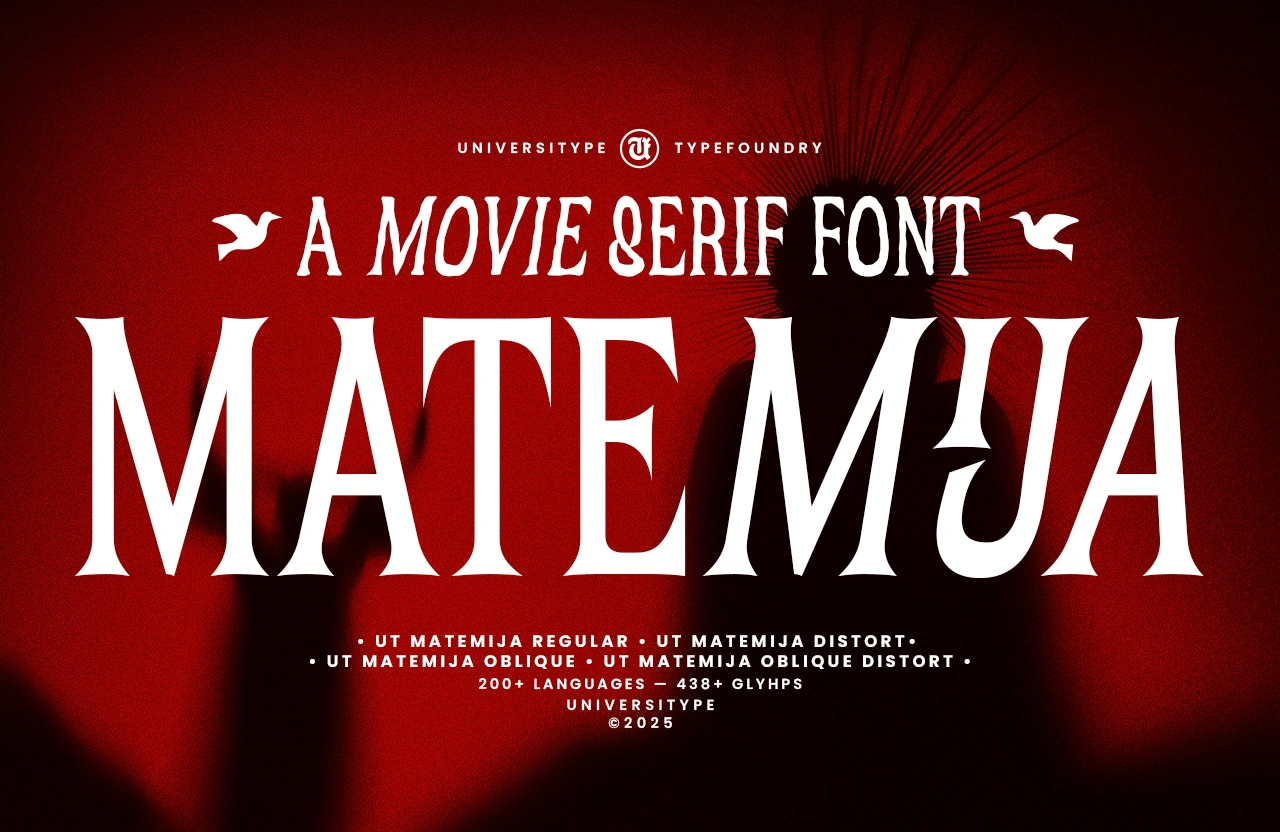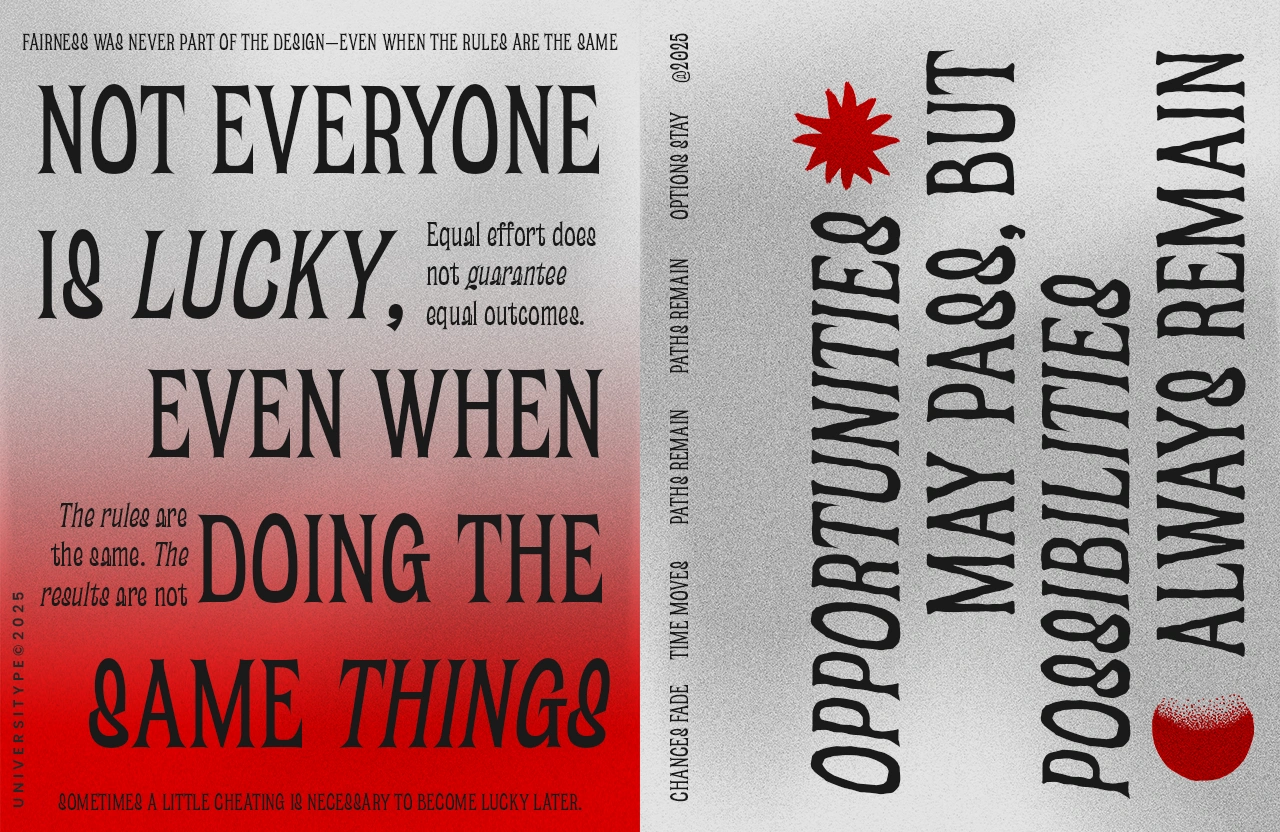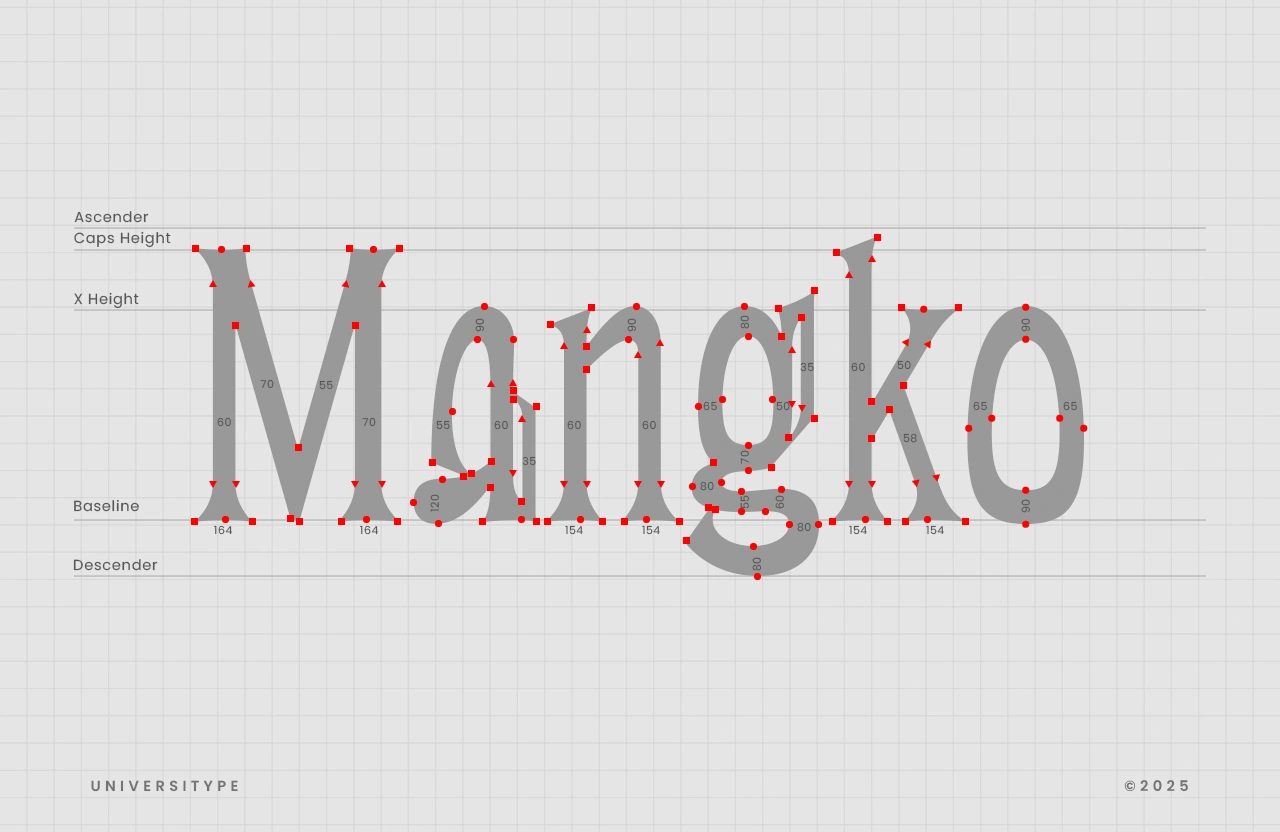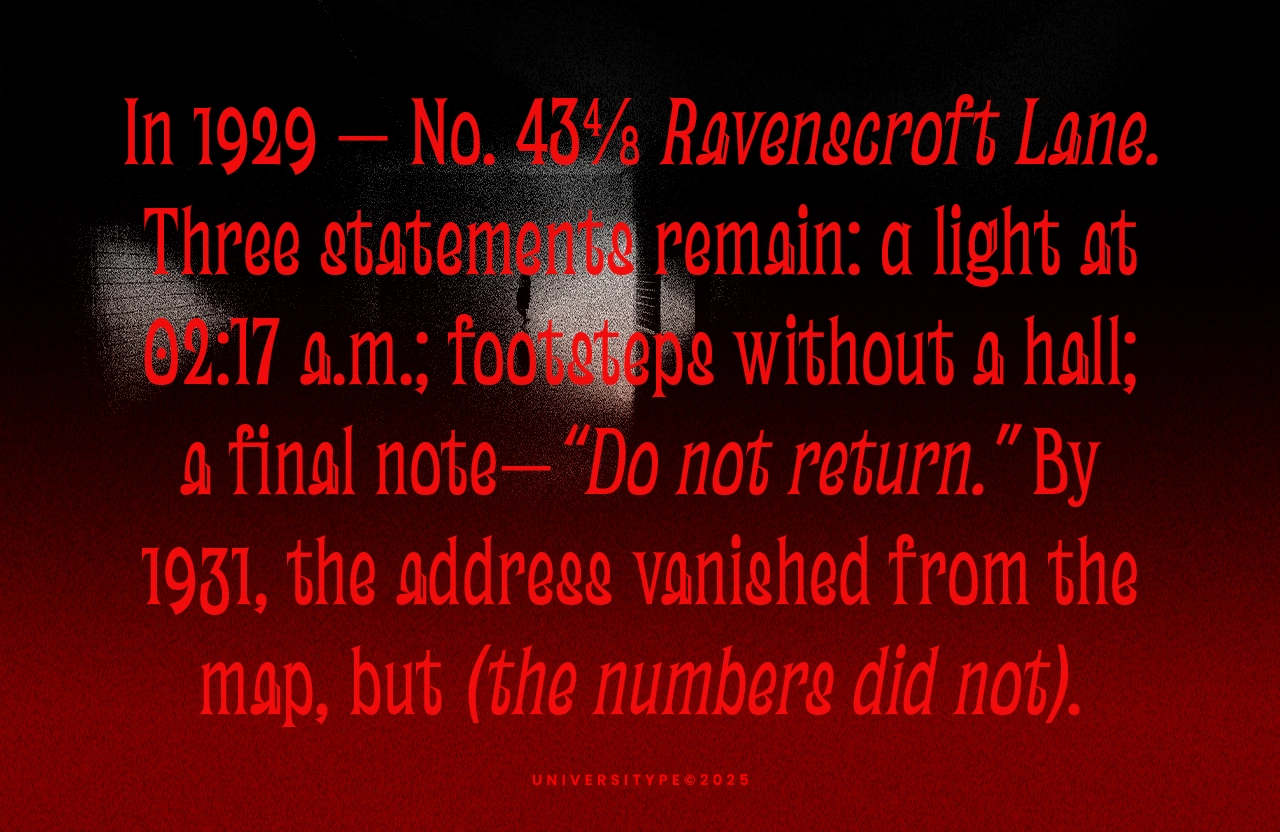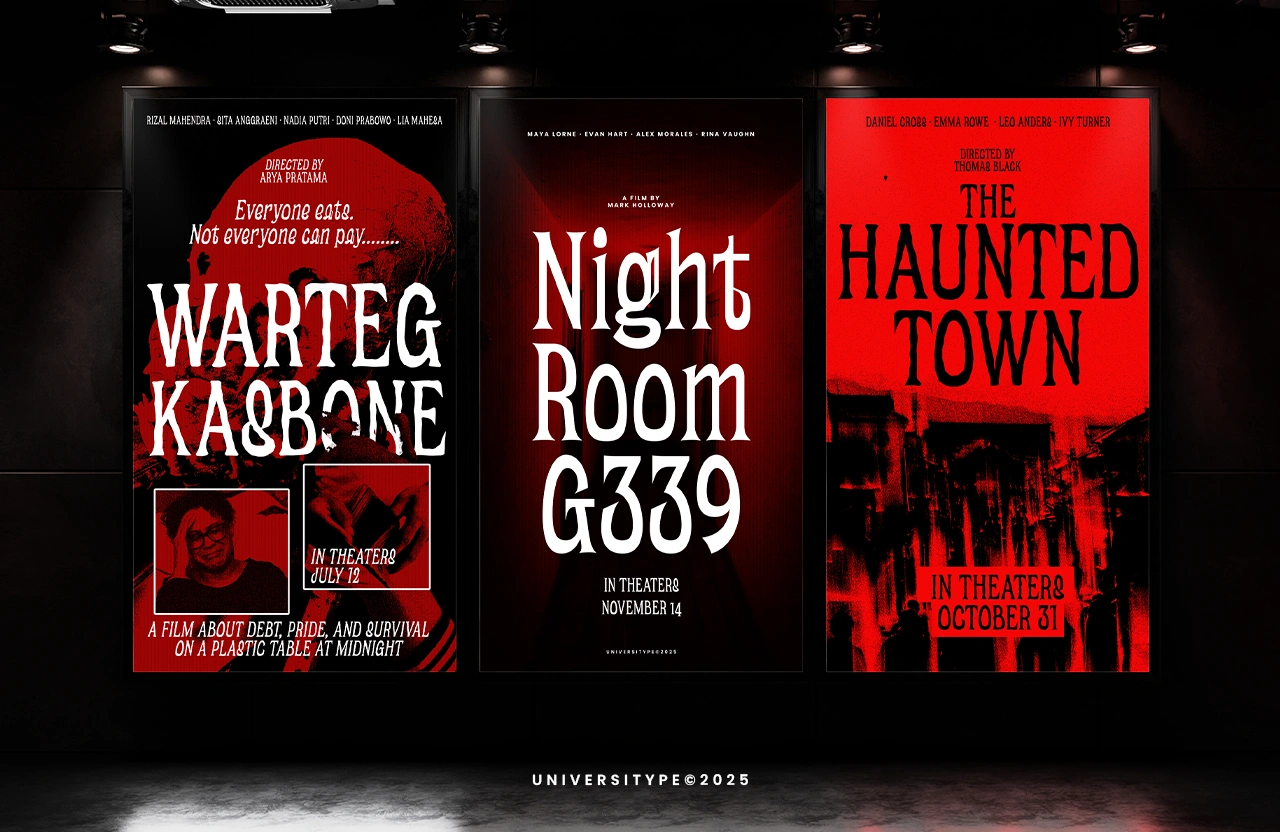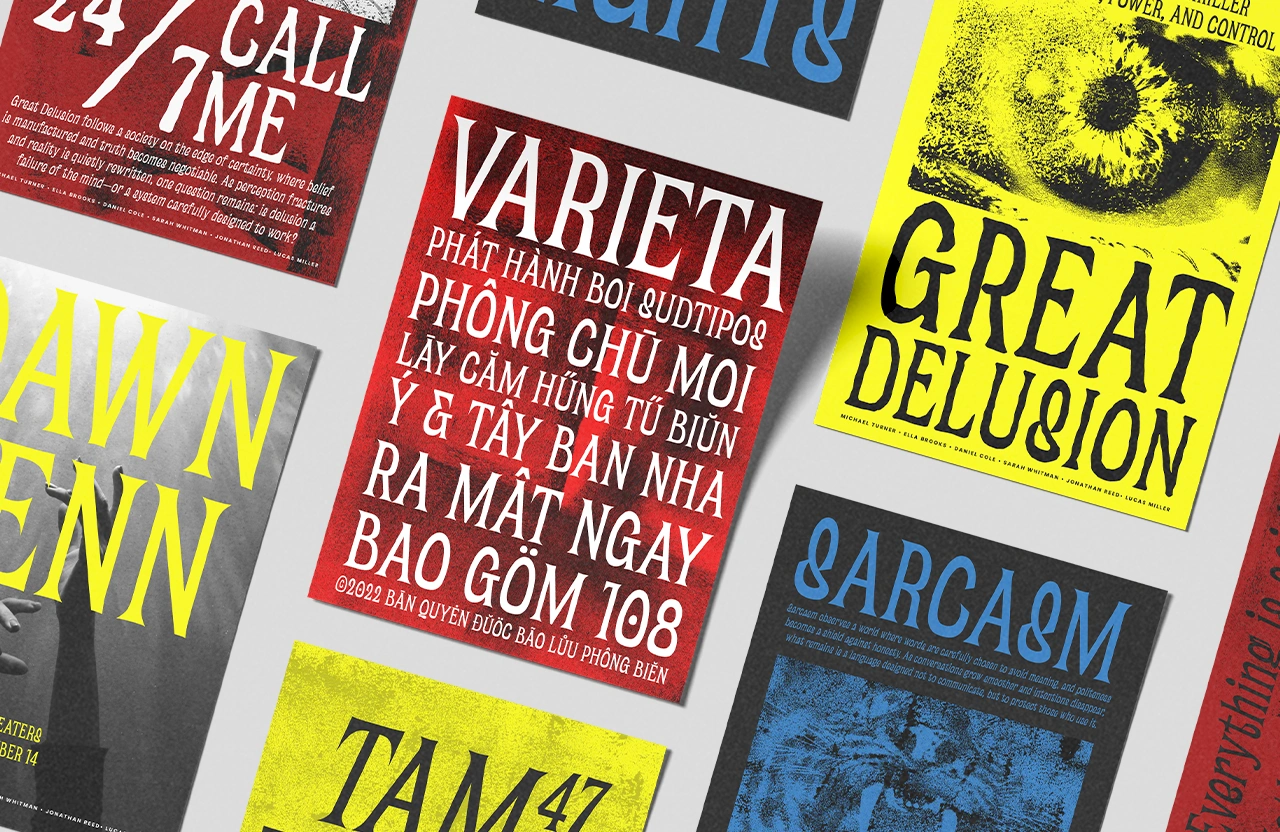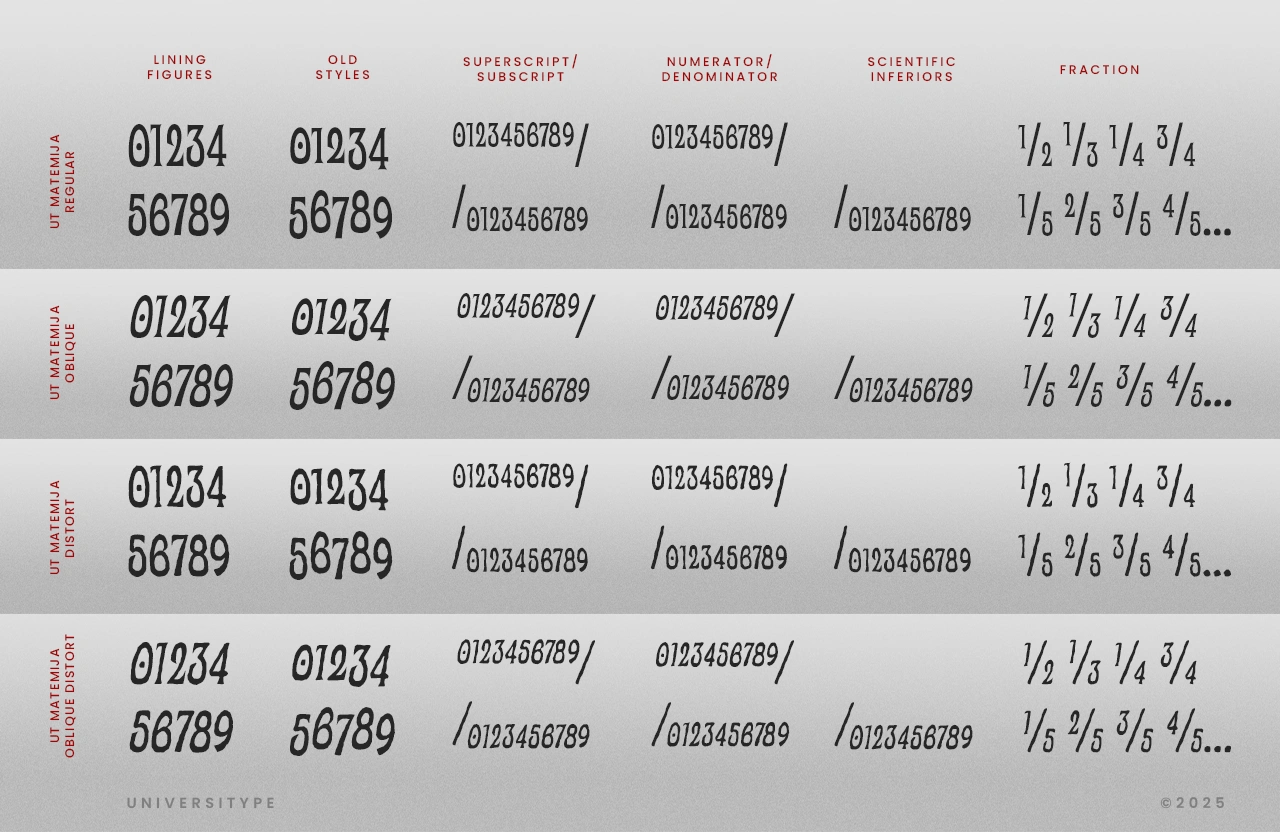
UT Matemija
UT Matemija is a cinematic serif typeface built around tension, mood, and storytelling. Inspired by classic movie title cards and psychological horror cinema, it blends sharp wedge serifs with softly warped curves to create a dramatic yet controlled presence. The contrast feels deliberate, the rhythm slightly uneasy, giving every word a sense of atmosphere.
UT Matemija – A Movie Serif Font
UT Matemija is a cinematic serif typeface built around tension, mood, and storytelling. Inspired by classic movie title cards and psychological horror cinema, it blends sharp wedge serifs with softly warped curves to create a dramatic yet controlled presence. The contrast feels deliberate, the rhythm slightly uneasy, giving every word a sense of atmosphere.
Designed primarily for display use, UT Matemija shines when emotion matters as much as readability. Whether clean or distorted, each style keeps its character intact, letting designers shape the tone without losing consistency.
Font Styles
• Regular
• Distort
• Oblique
• Distort Oblique
Target Audience
UT Matemija works especially well for:
• Film and poster designers
• Horror, thriller, and mystery creatives
• Brand designers focused on narrative-driven identities
• Editorial designers crafting bold headlines
• Artists working on album covers and book covers
Key Features
• Four expressive styles with a cohesive visual voice
• 300+ glyphs for flexible typographic exploration
• High-contrast construction with cinematic weight
• Distinct lowercase details that add personality
• Strong performance on dark, dramatic layouts
Inspiration Behind the Design
The design draws from early cinema typography, vintage film posters, and suspense-driven visual storytelling. Subtle distortions introduce tension, while classic serif proportions keep the typeface grounded and usable. The goal was to capture drama without falling into cliché.